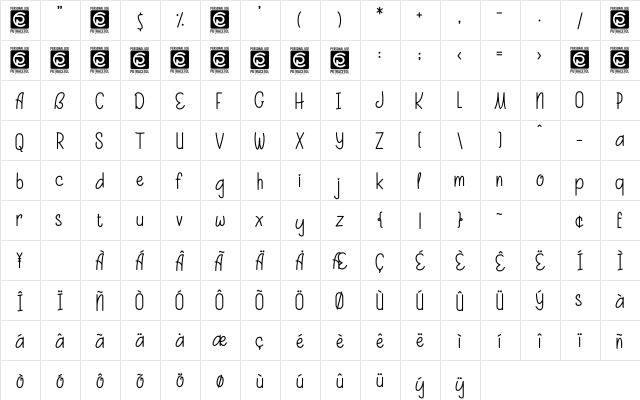
Cinta Cantik Free Regular
| Foundry | Putracetol Studio |
| Designer | Putra Novembria Candra Kusuma |
Design Context for Cinta Cantik Free Typeface
Cinta Cantik Free is a composed and adaptable typeface that performs quietly and consistently across a wide range of design contexts.